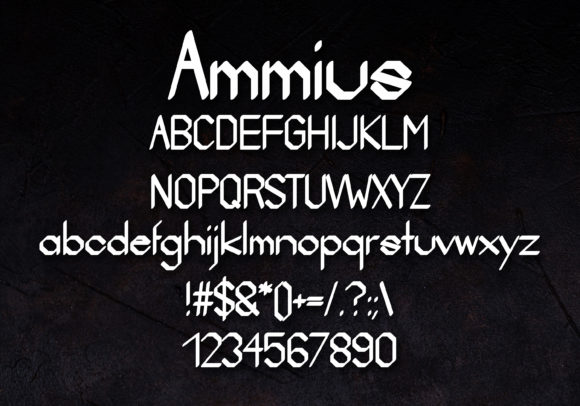
Introducing Ammius Font: The Bold, Geometric Display Font to Elevate Your Creativity
In the world of typography, fonts play a crucial role in bringing creative ideas to life. A well-chosen font can make or break a design project, and that’s where Ammius Font comes into play. Ammius is a bold, geometrically shaped display font that’s designed to add a touch of sophistication and elegance to your most creative ideas. In this article, we’ll dive into the features, benefits, and uses of Ammius Font, and explore how it can elevate your design game.
What is Ammius Font?
Ammius Font is a modern, sans-serif display font that’s characterized by its bold, geometric shape. The font features clean lines, sharp edges, and a futuristic aesthetic that’s perfect for designers, crafters, and artists who want to add a touch of innovation to their work. Ammius Font is designed to be versatile, making it suitable for a wide range of applications, from branding and advertising to packaging and digital media.
Key Features of Ammius Font
- Bold and Geometric Shape: Ammius Font features a bold, geometric shape that’s designed to grab attention and make a statement.
- Clean Lines and Sharp Edges: The font’s clean lines and sharp edges give it a modern, futuristic aesthetic that’s perfect for designs that require a touch of sophistication.
- Versatile and Adaptable: Ammius Font is designed to be versatile, making it suitable for a wide range of applications, from digital media to print materials.
- Easy to Read: Despite its bold and geometric shape, Ammius Font is easy to read, making it perfect for designs that require a clear and concise message.
Benefits of Using Ammius Font
So, why should you choose Ammius Font for your design projects? Here are just a few benefits of using this amazing font:
- Adds Visual Impact: Ammius Font is designed to grab attention and add visual impact to your designs. Its bold, geometric shape makes it perfect for headlines, titles, and other design elements that require a touch of drama.
- Enhances Creativity: Ammius Font is designed to inspire creativity and bring your ideas to life. Its modern, futuristic aesthetic makes it perfect for designers, crafters, and artists who want to push the boundaries of their creativity.
- Versatile and Adaptable: Ammius Font is suitable for a wide range of applications, from digital media to print materials. Its versatility makes it a great addition to any designer’s font library.
How to Use Ammius Font
Ammius Font is easy to use and can be incorporated into a wide range of design projects. Here are just a few ideas to get you started:
- Branding and Advertising: Use Ammius Font to create bold, eye-catching headlines and titles that grab attention and make a statement.
- Packaging Design: Add a touch of sophistication and elegance to your packaging designs with Ammius Font.
- Digital Media: Use Ammius Font to create stunning digital media, including social media graphics, blog posts, and website headers.
- Art and Illustration: Ammius Font is perfect for artists and illustrators who want to add a touch of modernity and sophistication to their work.
In conclusion, Ammius Font is a bold, geometrically shaped display font that’s designed to elevate your creativity and bring your ideas to life. Its modern, futuristic aesthetic makes it perfect for designers, crafters, and artists who want to add a touch of innovation to their work. With its versatility, adaptability, and ease of use, Ammius Font is a great addition to any designer’s font library.